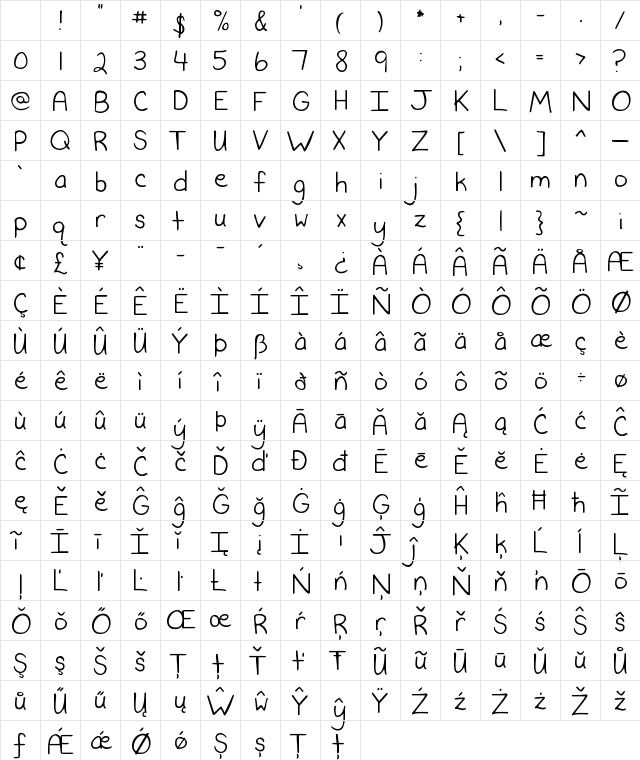
Complete KG Never Say Never Regular glyph index. Displaying only characters natively supported by KG Never Say Never Regular font.
KG Never Say Never is a composed and adaptable typeface that performs quietly and consistently across a wide range of design contexts.